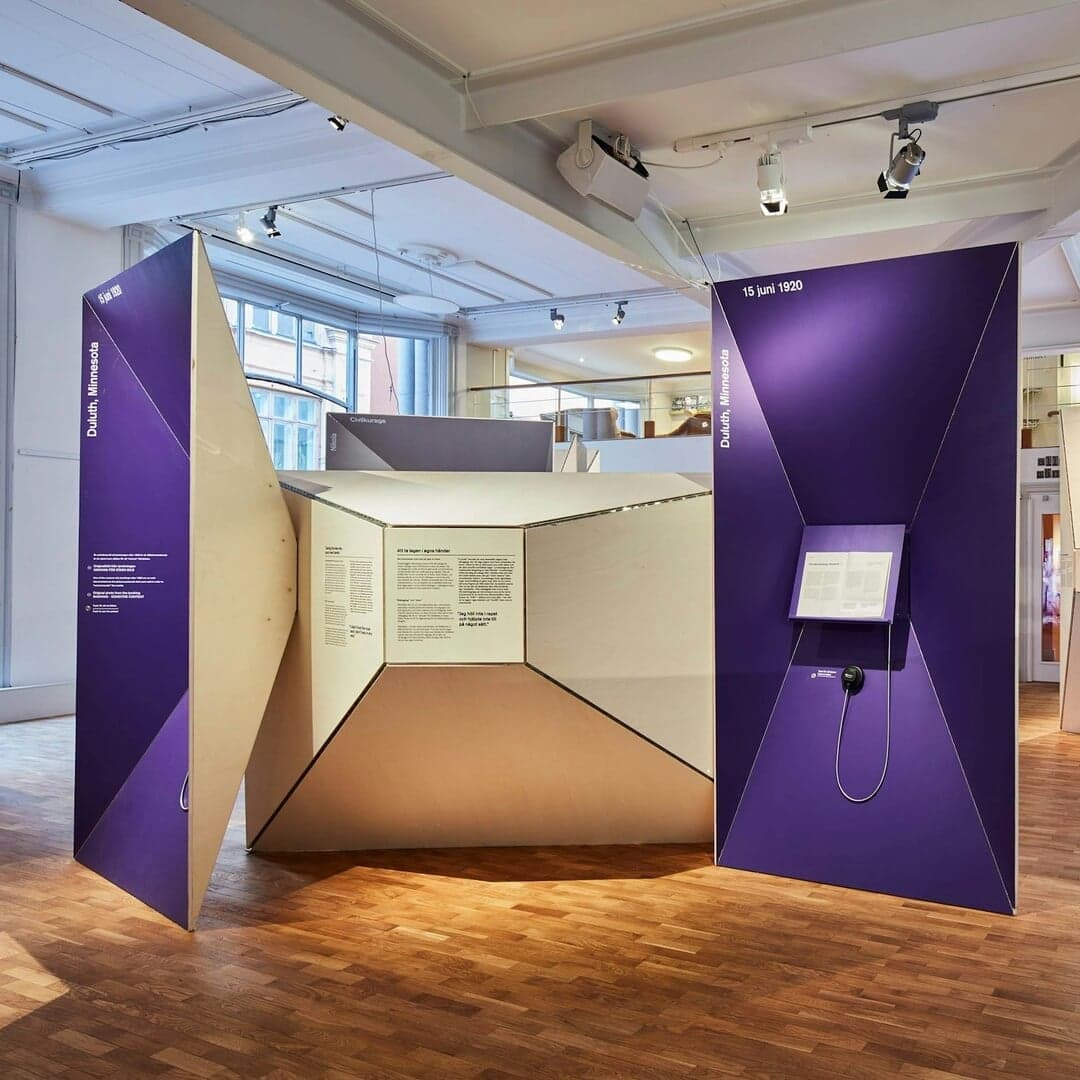
Altmann Grotesk is a custom sans serif typeface developed after extensive research into both classic and contemporary letterforms. The goal was to create a typeface that balances neutrality with distinctive character, achieving clarity and subtle individuality suitable for diverse applications.